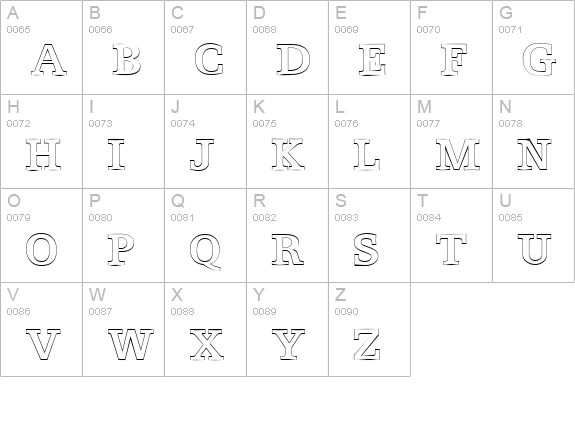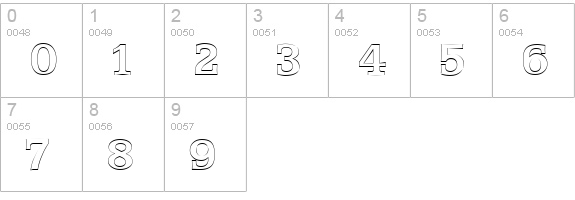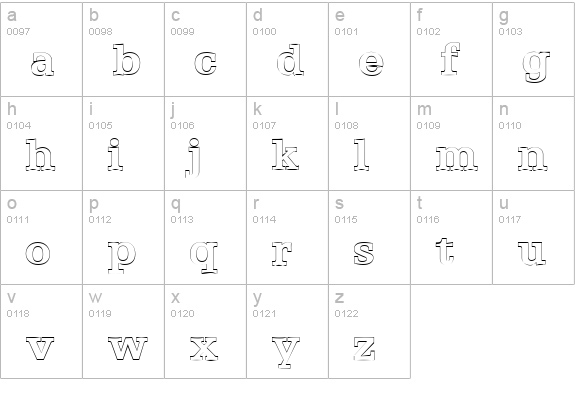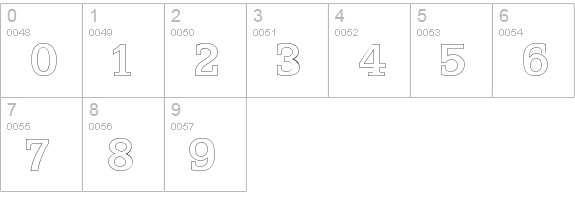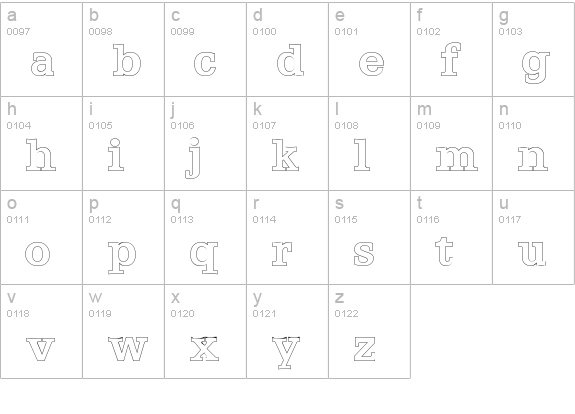
Egyptian Regular Font Details
Egyptian Regular is the standard, neutral variant in the Egyptian typeface family \xE2\x80\x94 well suited to general body text, paragraphs, and standard typographic work.
The Egyptian Regular font is a timeless and elegant typeface inspired by ancient Egyptian hieroglyphics. Its bold and distinctive design makes it perfect for headlines, titles, and branding projects. With its clean lines and classic aesthetic, this font exudes a sense of sophistication and refinement. What makes Egyptian Regular even more appealing is that it is available for free download at FontsMarket.com. This means that you can easily access and use this versatile font in your design projects without any cost. Whether you're working on a poster, logo, or website, Egyptian Regular will add a touch of style and professionalism to your work. Download it today and elevate your designs with this beautiful and impactful typeface.